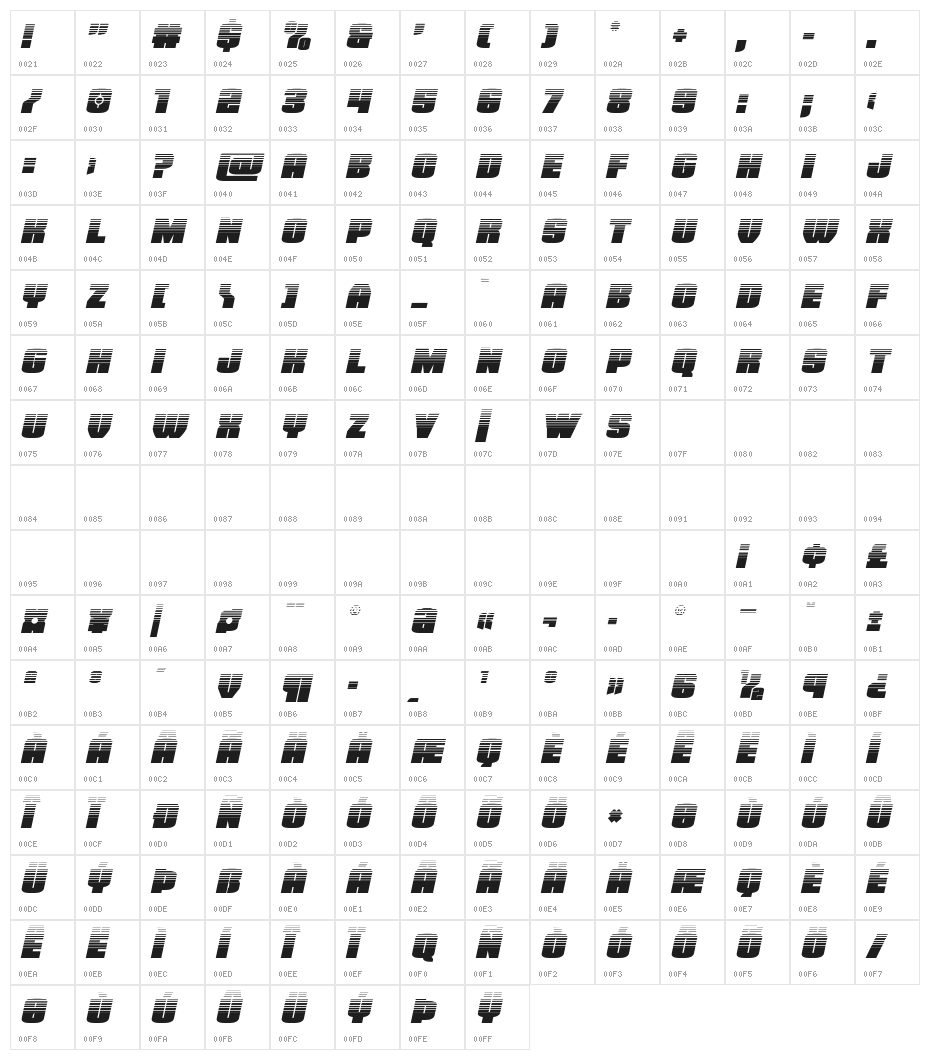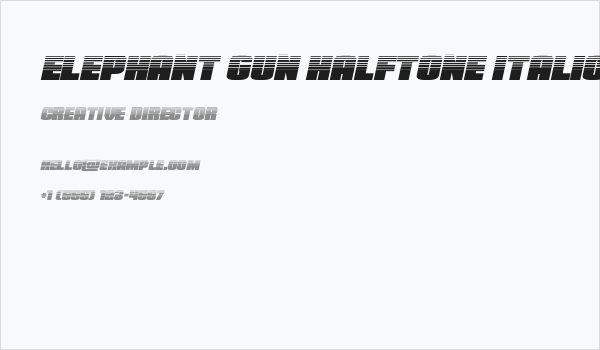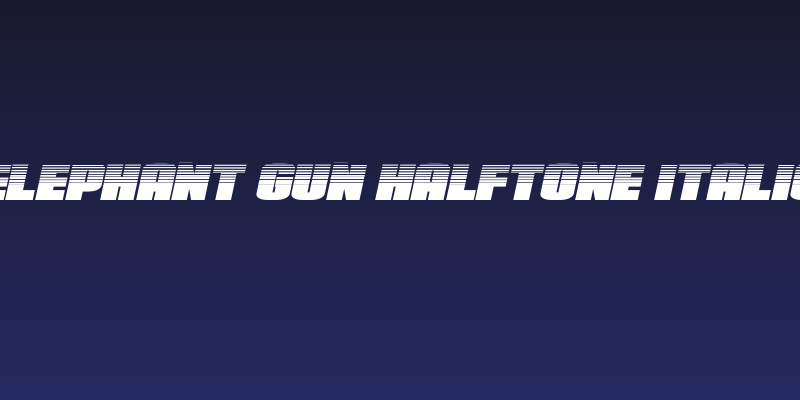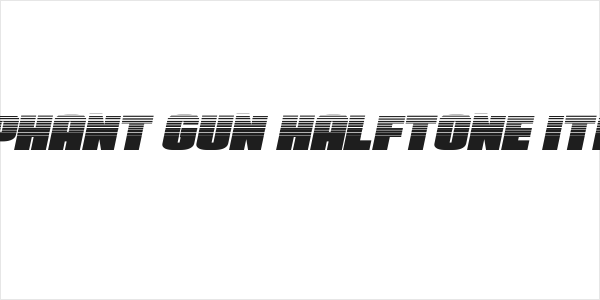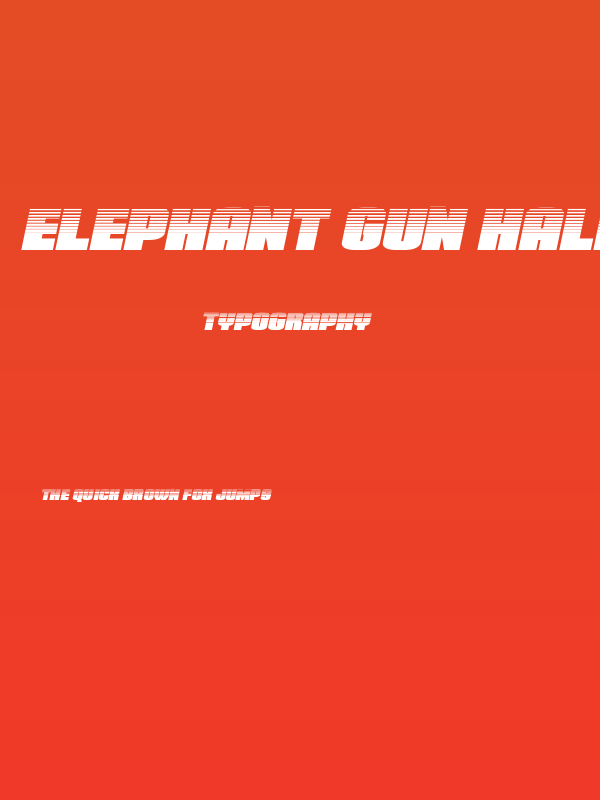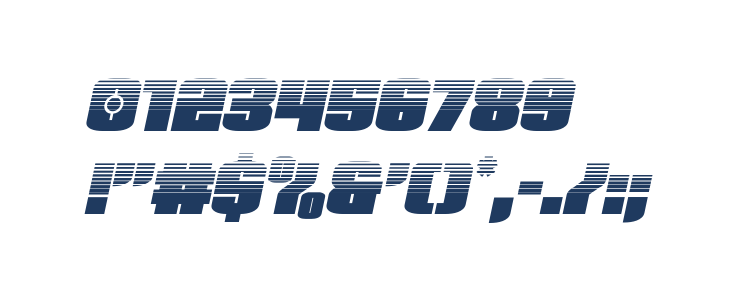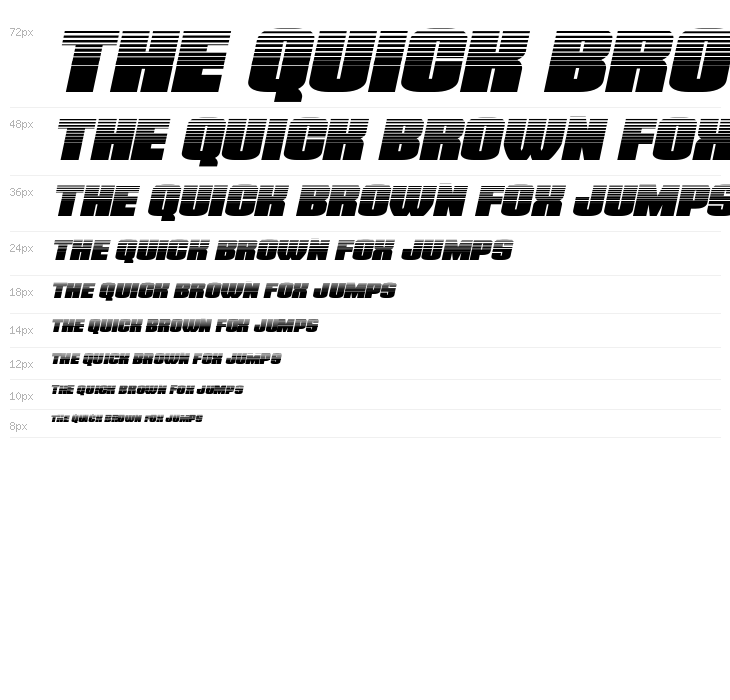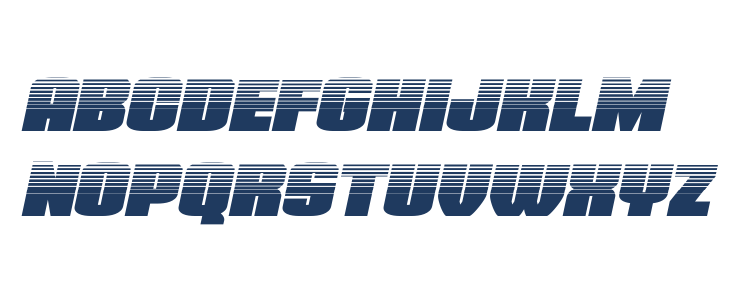
Elephant Gun Halftone Italic Font
Elephant Gun Halftone Italic Description
This font features a bold, italicized style with a unique halftone effect that gives it a dynamic and modern appearance. The characters are wide and have a strong presence, making them ideal for attention-grabbing designs. The halftone lines create a sense of movement and depth, enhancing the visual impact. Each letter is meticulously crafted with a consistent slant, emphasizing the italic nature. The numbers and special characters maintain the same bold and halftone characteristics, ensuring uniformity across all glyphs. This font is perfect for projects that require a bold statement and a modern, edgy look.